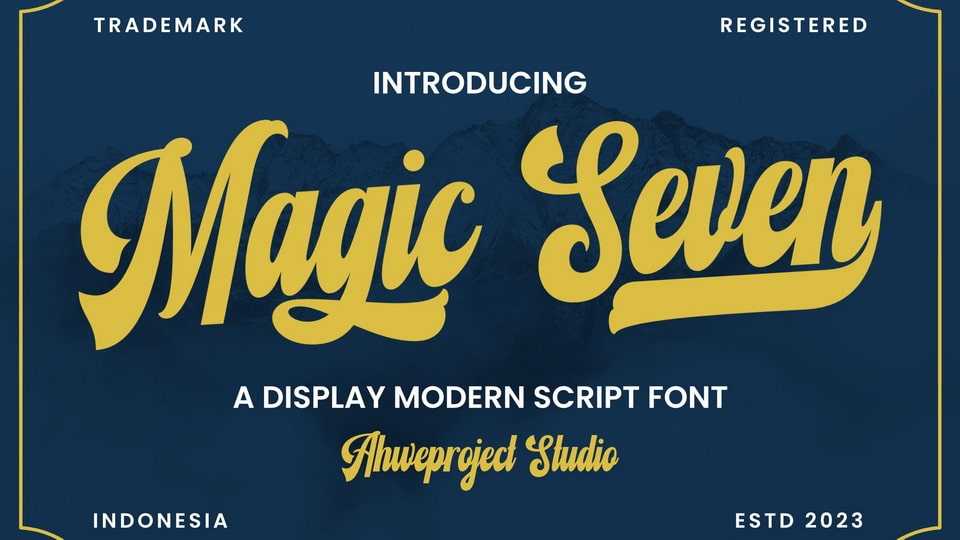
Download Magic Seven font, a stunning display script typeface that seamlessly blends classic and modern design elements to create a unique and stylish typeface.